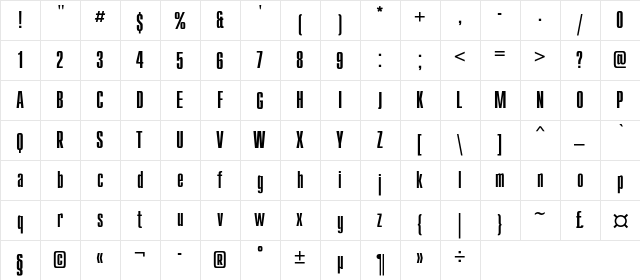
CompactC Regular Font Preview
CompactC Regular
Design Context for CompactC Typeface
CompactC is a composed and adaptable typeface that performs quietly and consistently across a wide range of design contexts. Its narrow stance lets it pack a punch even in space-constrained designs.
Pro Tip: Use CompactC in both headline and body roles to test its range before committing to a single application.